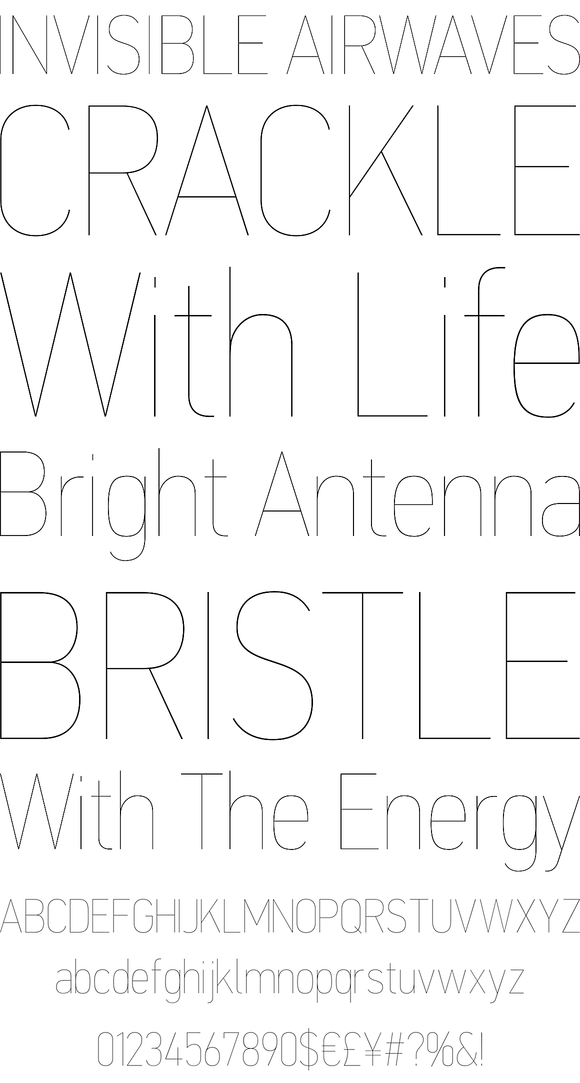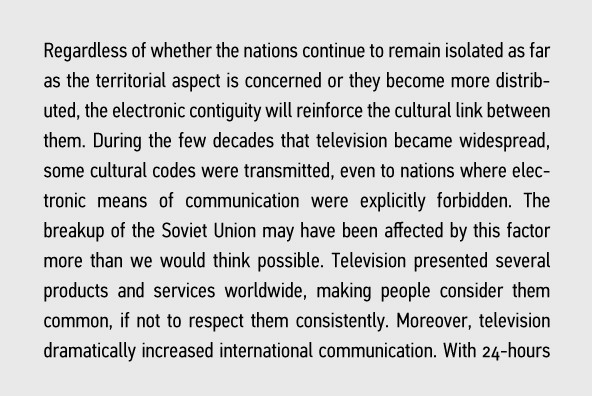
PF DIN Text Condensed Pro
The DIN Text series was based on the original standards but was completely redesigned to fit typographic requirements. Completed in 2002, it was first released in 2003 and published in our catalog, as a group of 4 separate families each with 12 weights for a total of 48 weights (regular weights, condensed, compressed and a special display version). The DIN Text Pro series is a brand new and improved version which has been enhanced with more weights, multilingual support and opentype features in all different styles. It has lowercase ascenders that are higher than the capitals, varying letter proportions and italics (just like the first release) that are not a mechanically-obliqued version of the regular weights, but rather true designed italics. An attempt was made to divert from the stiff geometric structure of the original and introduce instead elements which are familiar, softer and easier to read. The glyphs for all languages have been carefully and professionally designed to not only share the same weight and structure but to reflect the current trends in all different scripts as well. Finally, every font in this series has been completed with 270 copyright-free symbols, some of which have been proposed by several international organizations for packaging, public areas, environment, transportation, computers, fabric care and urban life.